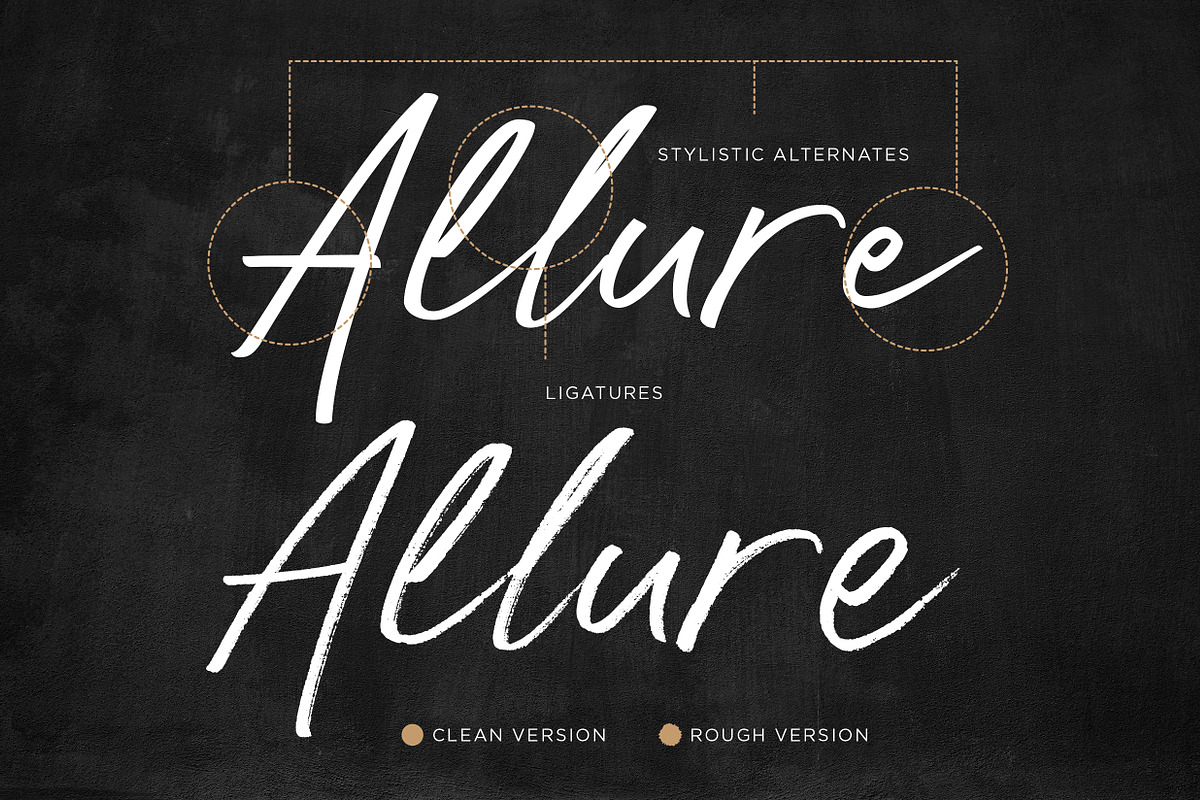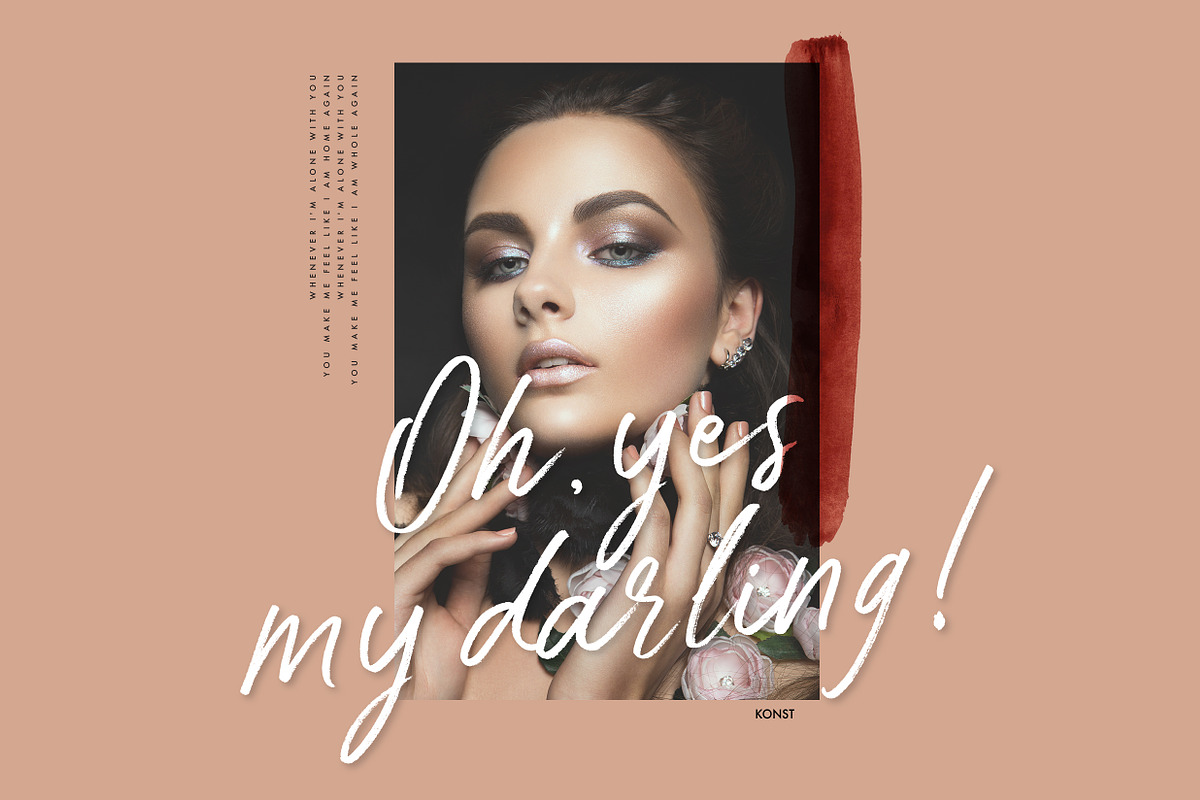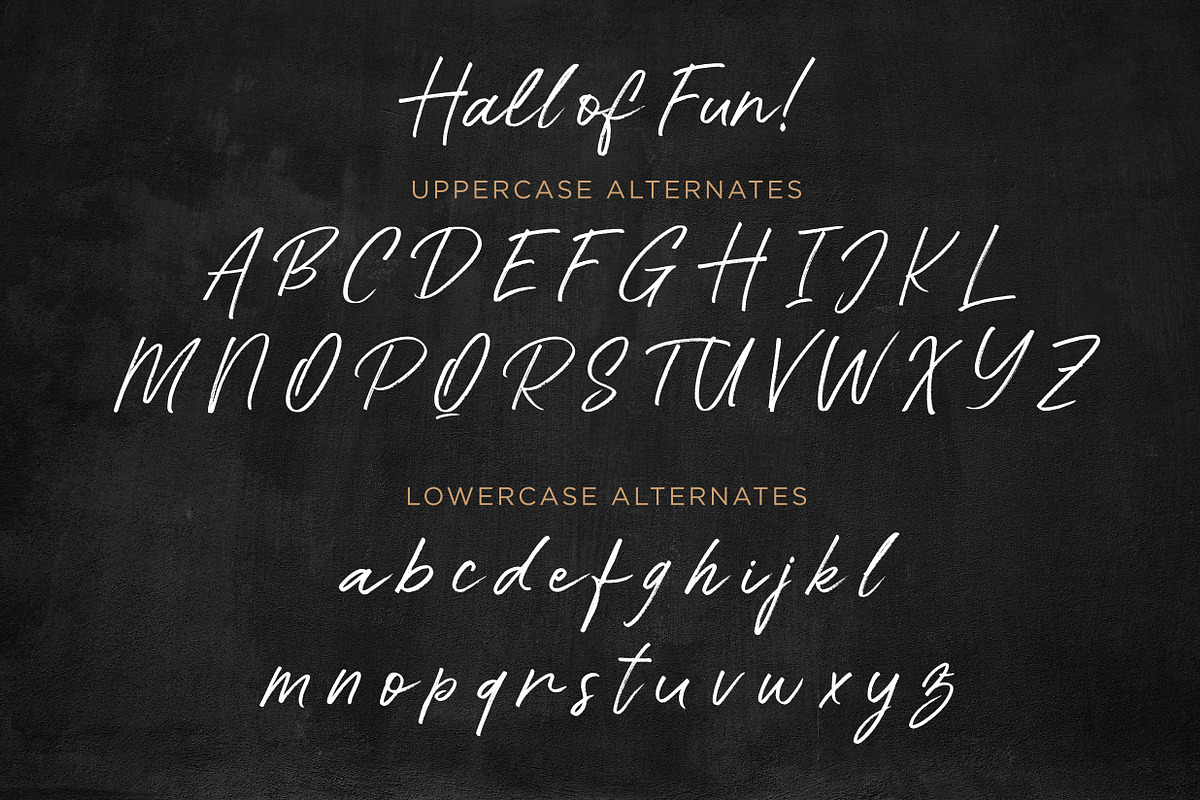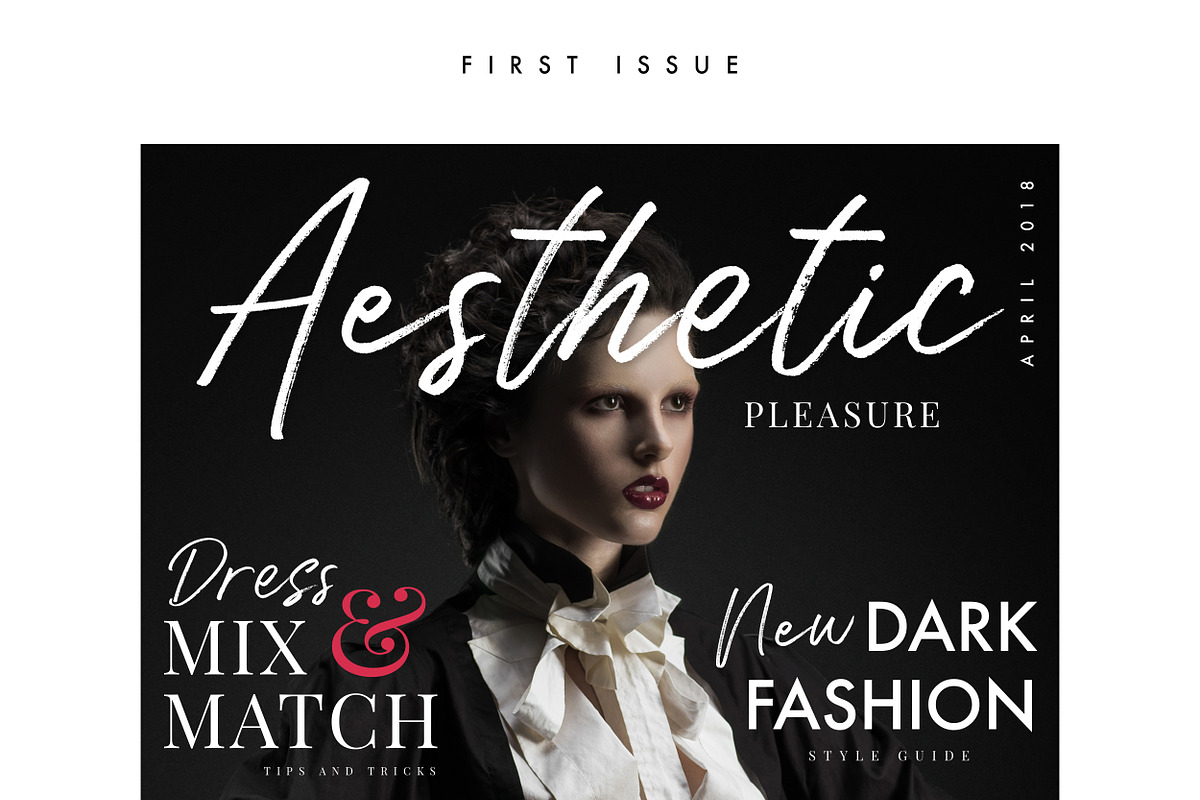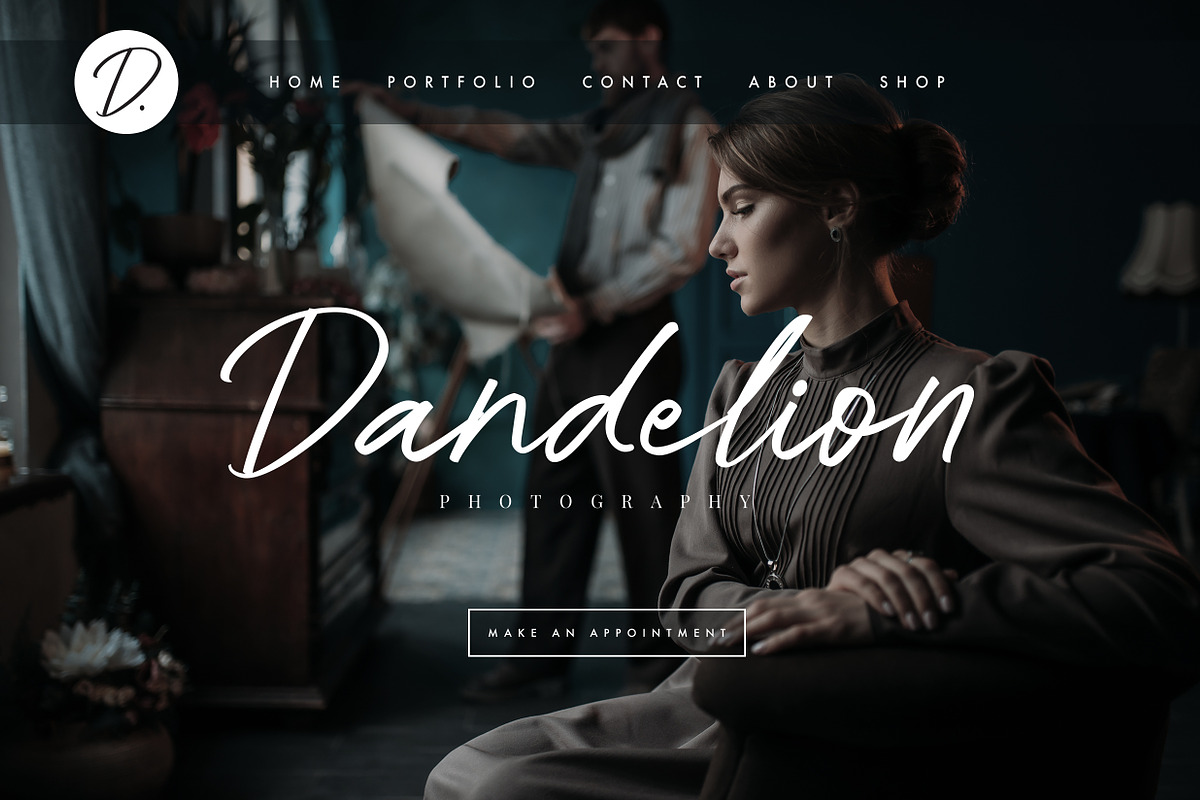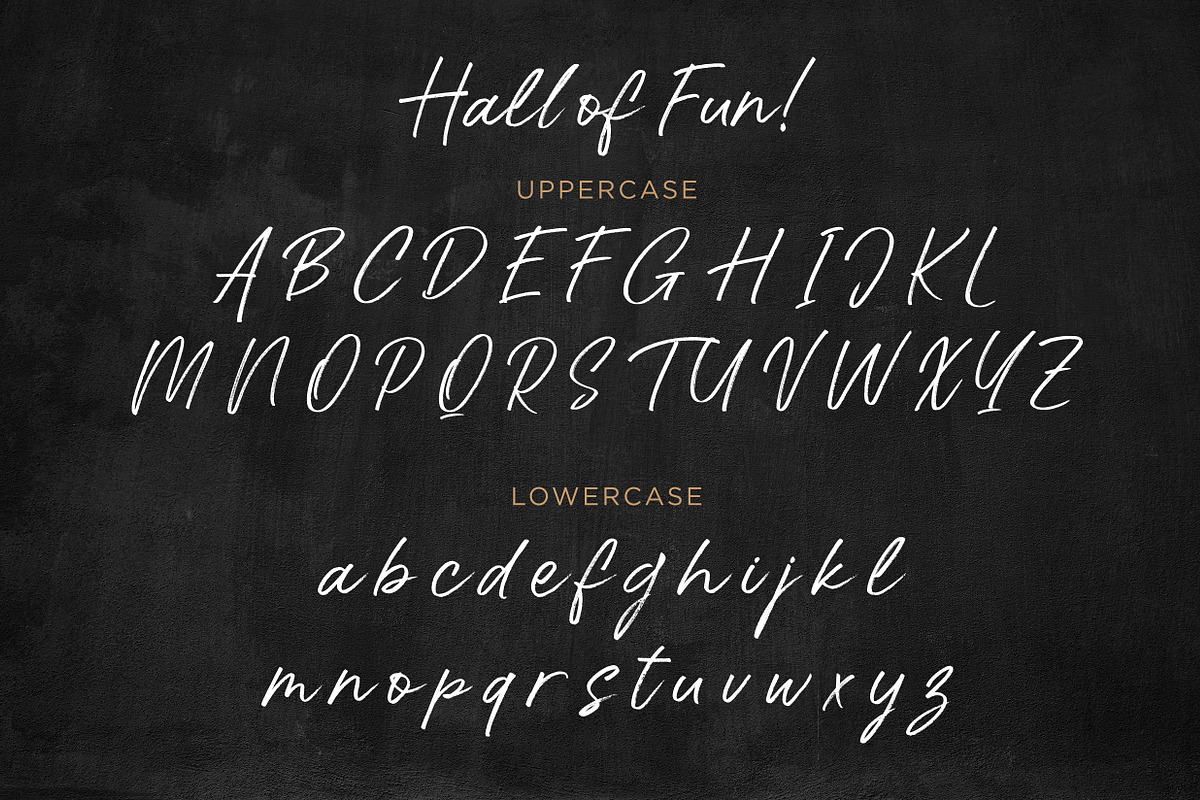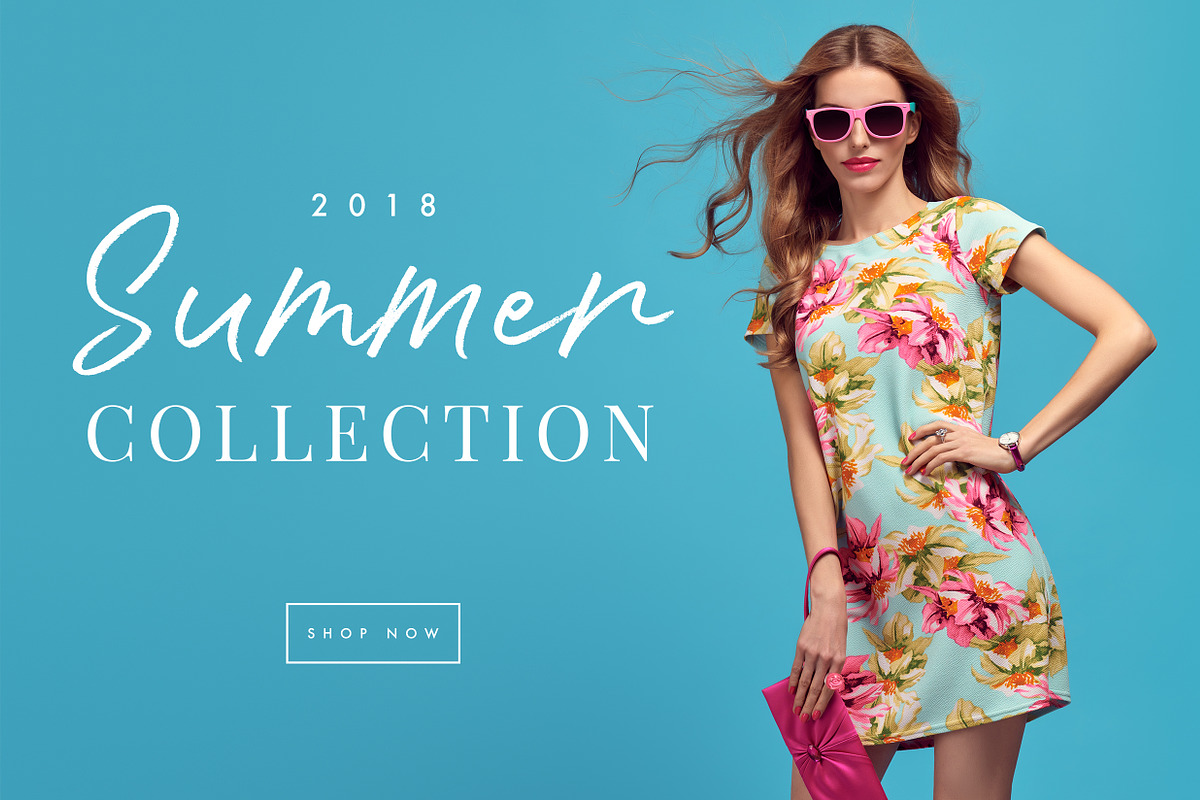
Hall Of Fun - Casual Elegant Font
Hall of Fun, a fast dry brush handwriting script font, comes out with clean and brush version to fit for your needs. Straight from the hands and will be a perfect pair for fashion branding, logo, social media marketing, presentation, vintage products, make yourself standout with the Hall of Fun right away!
Included Uppercase, Lowercase, Numbers & Punctuations, Multilanguage Support, Alternates for every Uppercase and Lowercase. And ligatures for "r" meet up and double-letters to seamlessly make it looks like handwritten.
Hall of Fun font. A dry brush and rough version. Super authentic handwriting feels with the textures on every letters.
Hall of Fun Clean font. A clean vectorized version from it. Sometimes you doesn't like it rough so we made it clean. Perfectly fit for cutting machine if you like to make it for Cricut and Silhouette board.
Hall Of Fun - Casual Elegant Font by Konstantine Studio fits naturally into Branding, posters, packaging, typography.